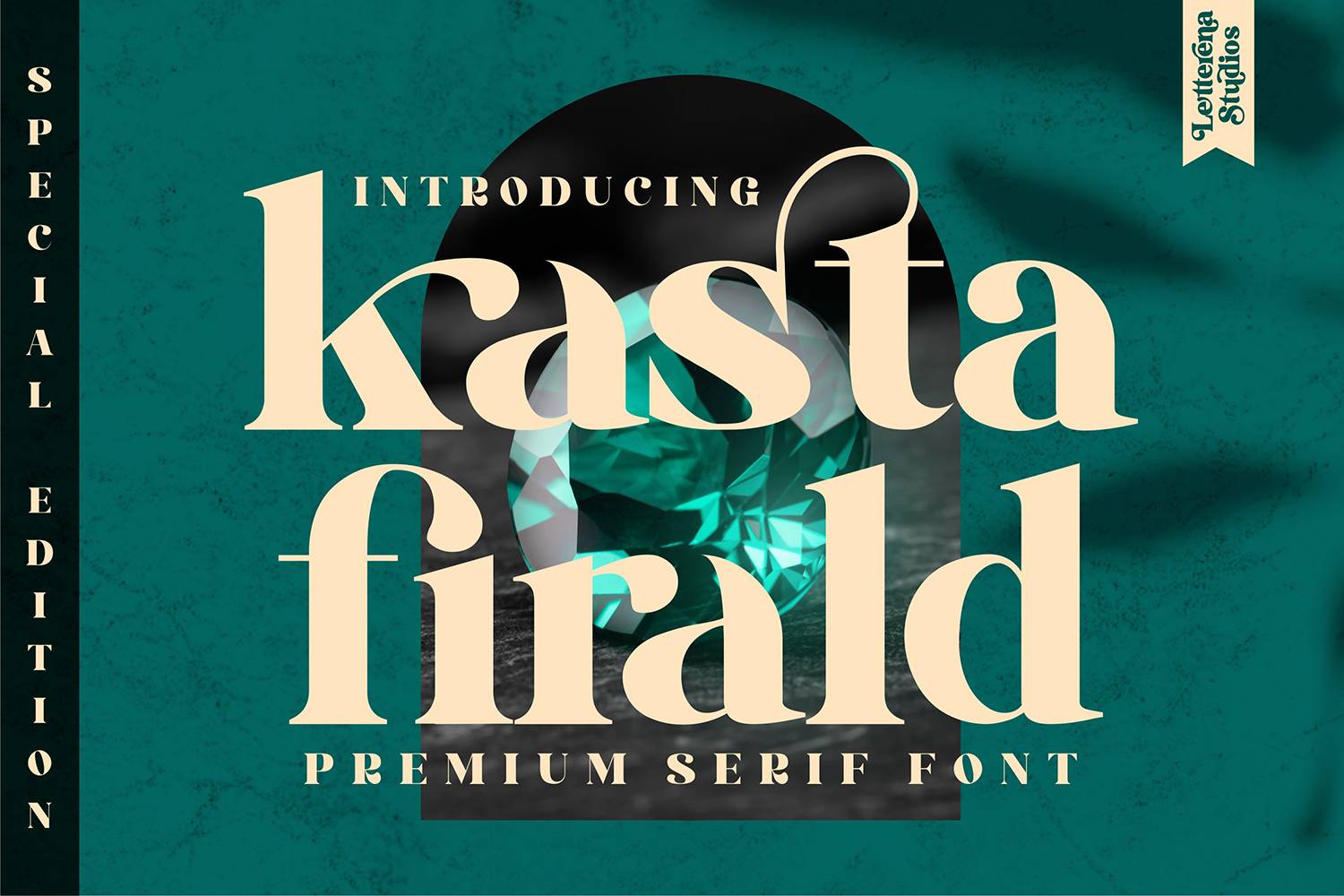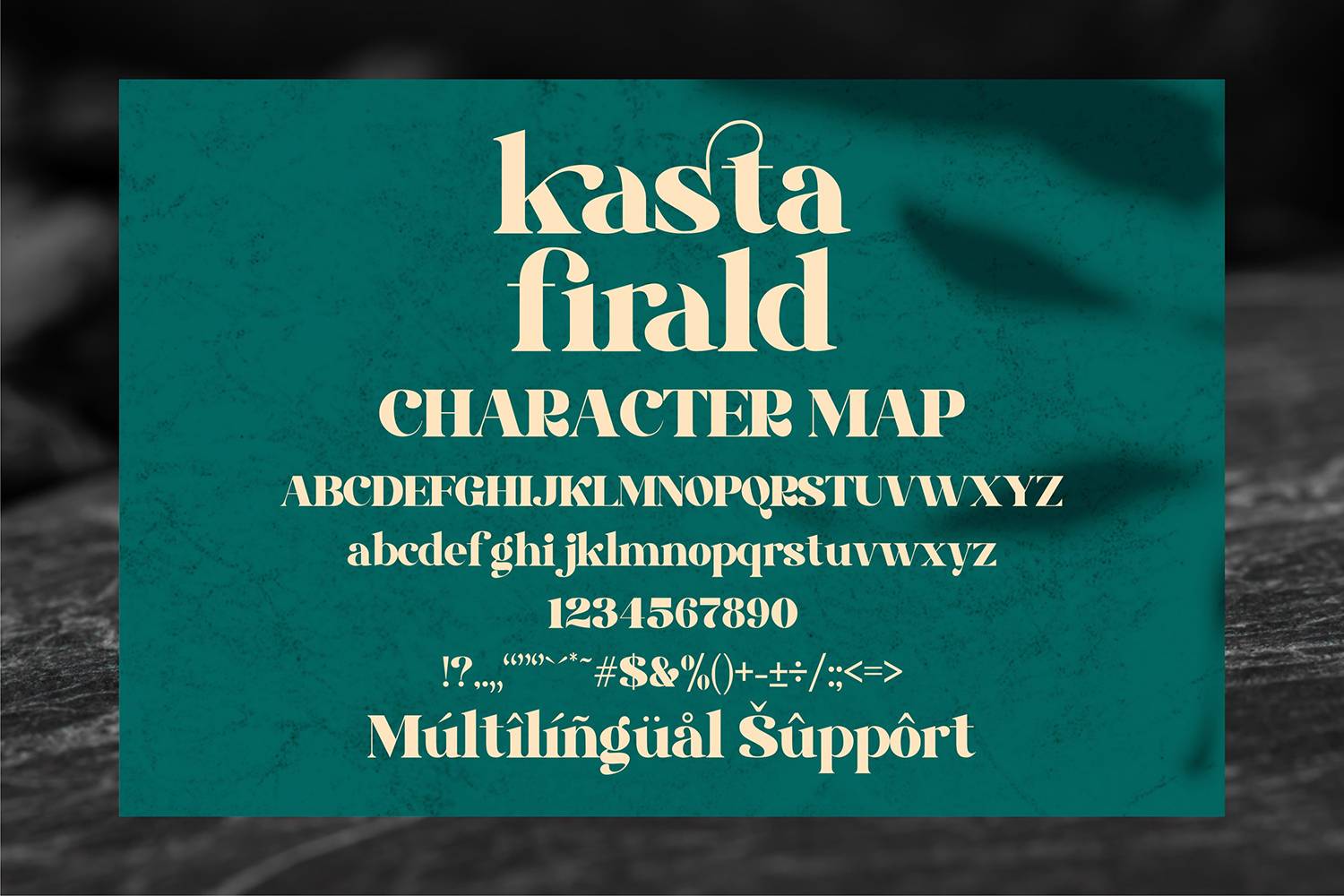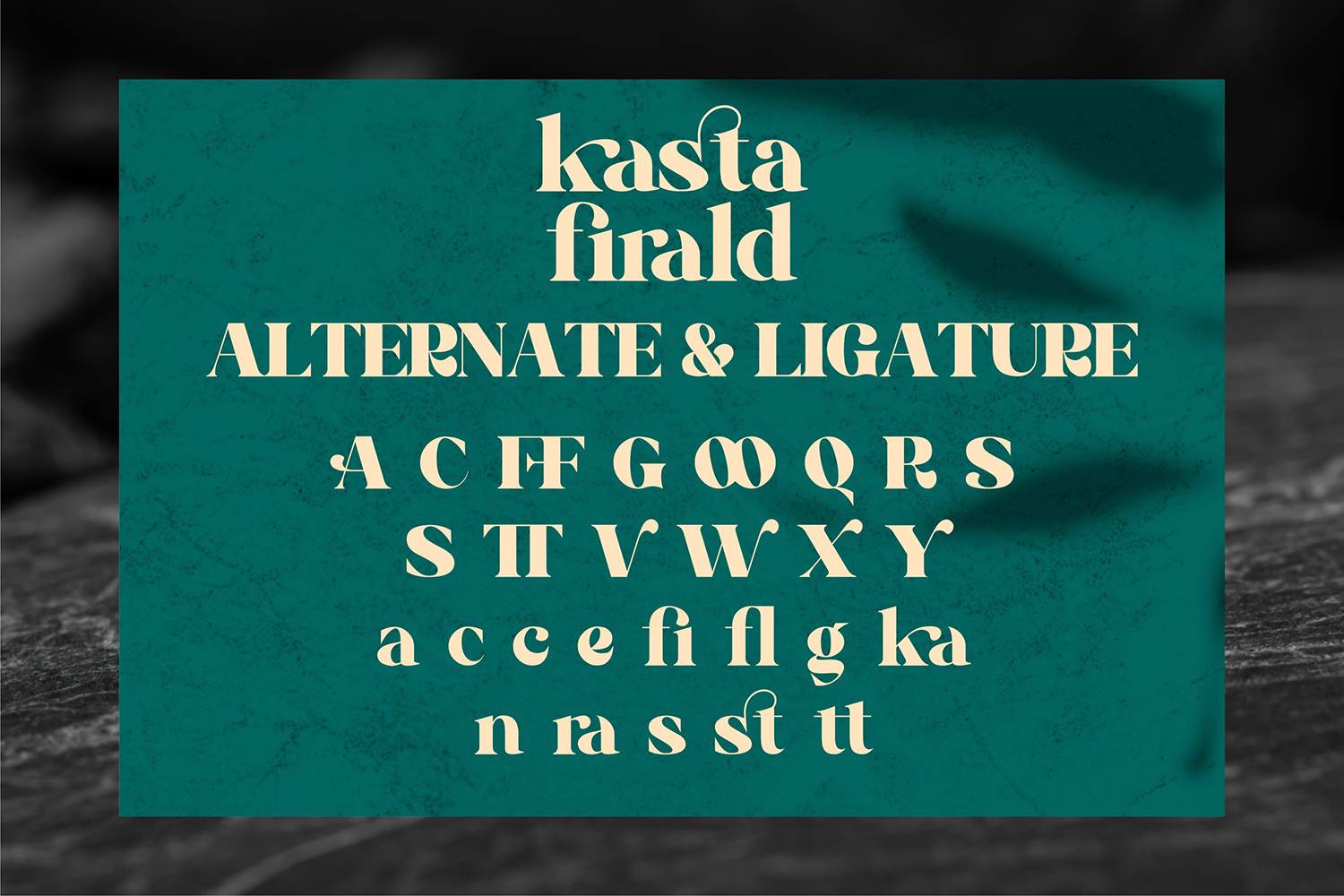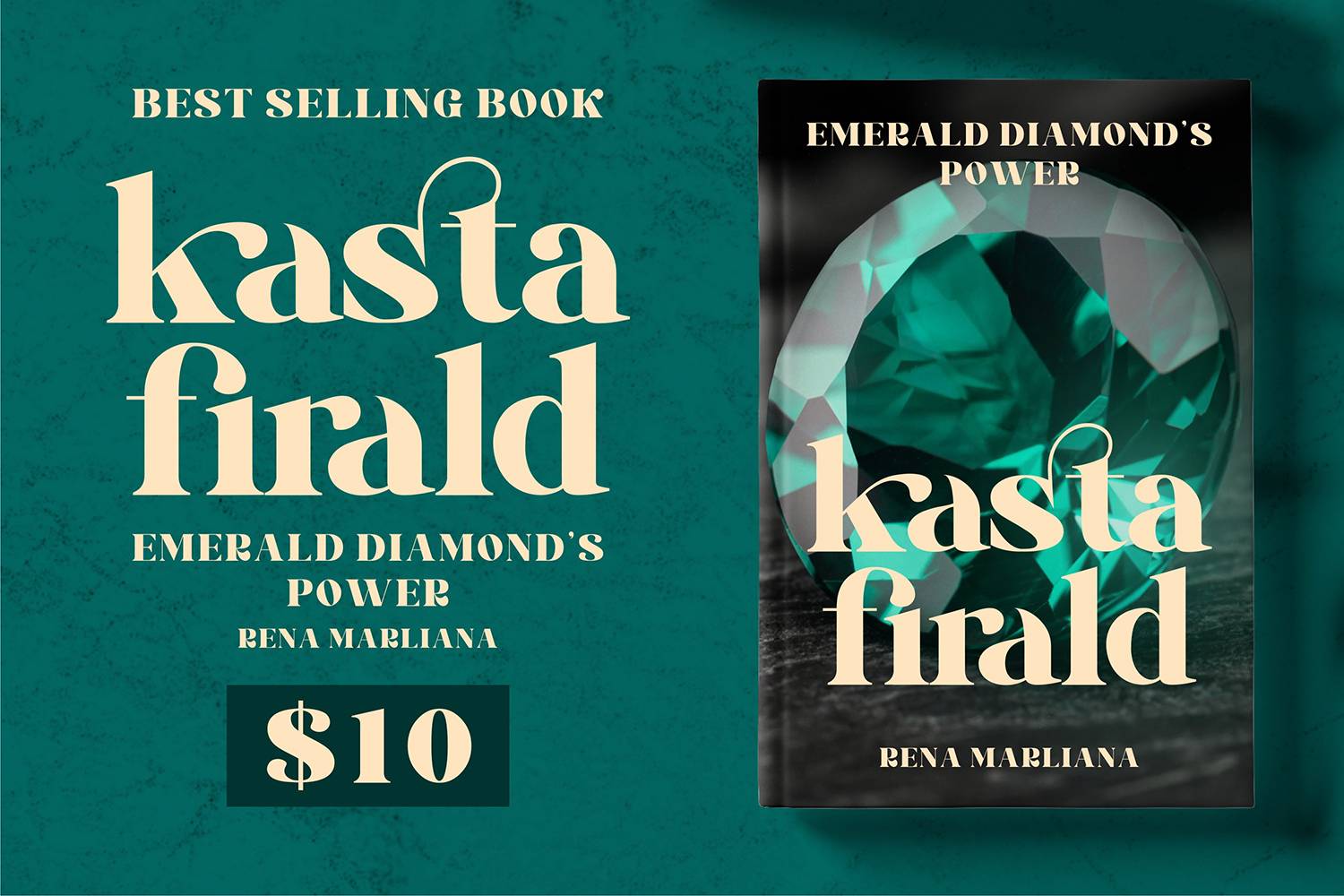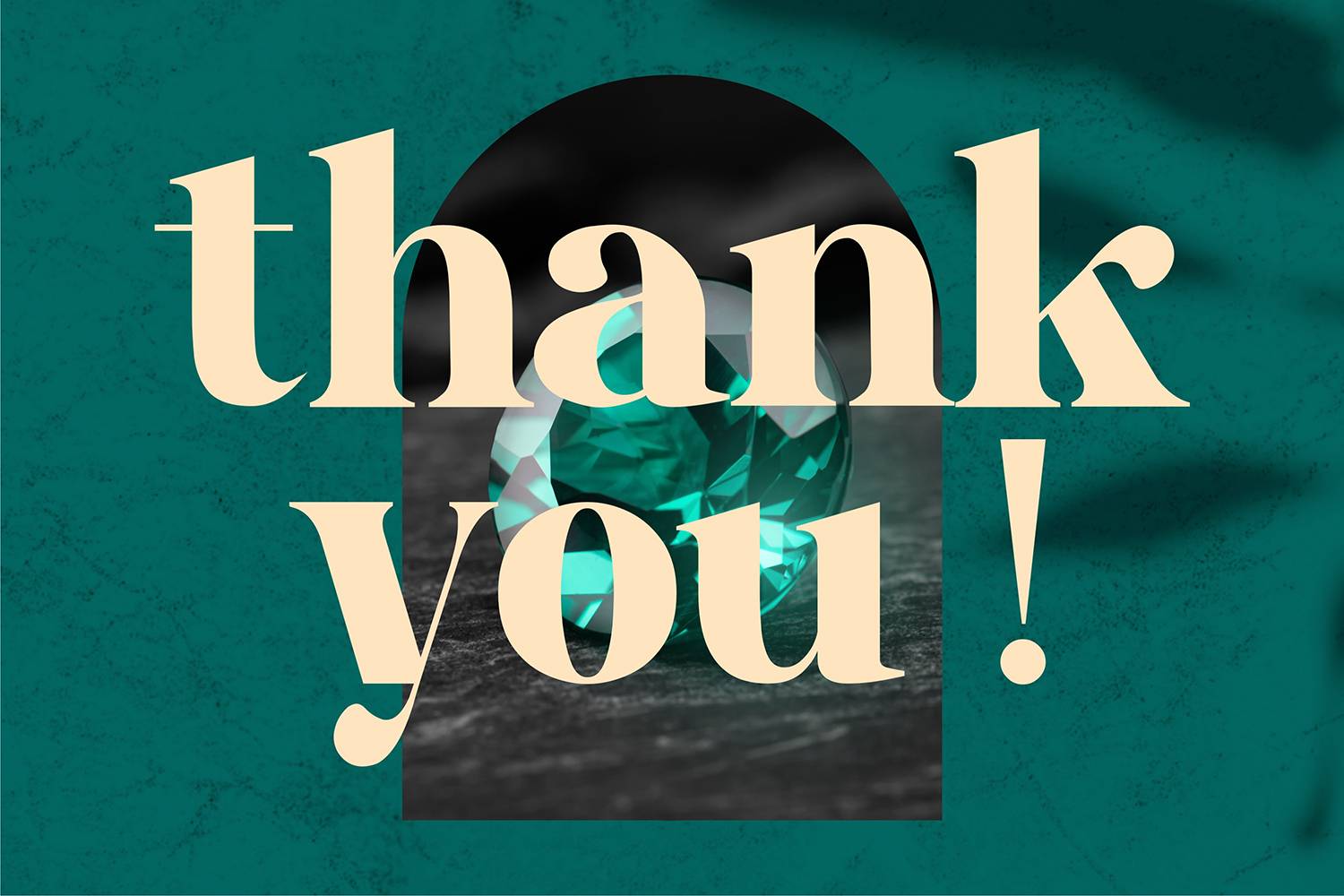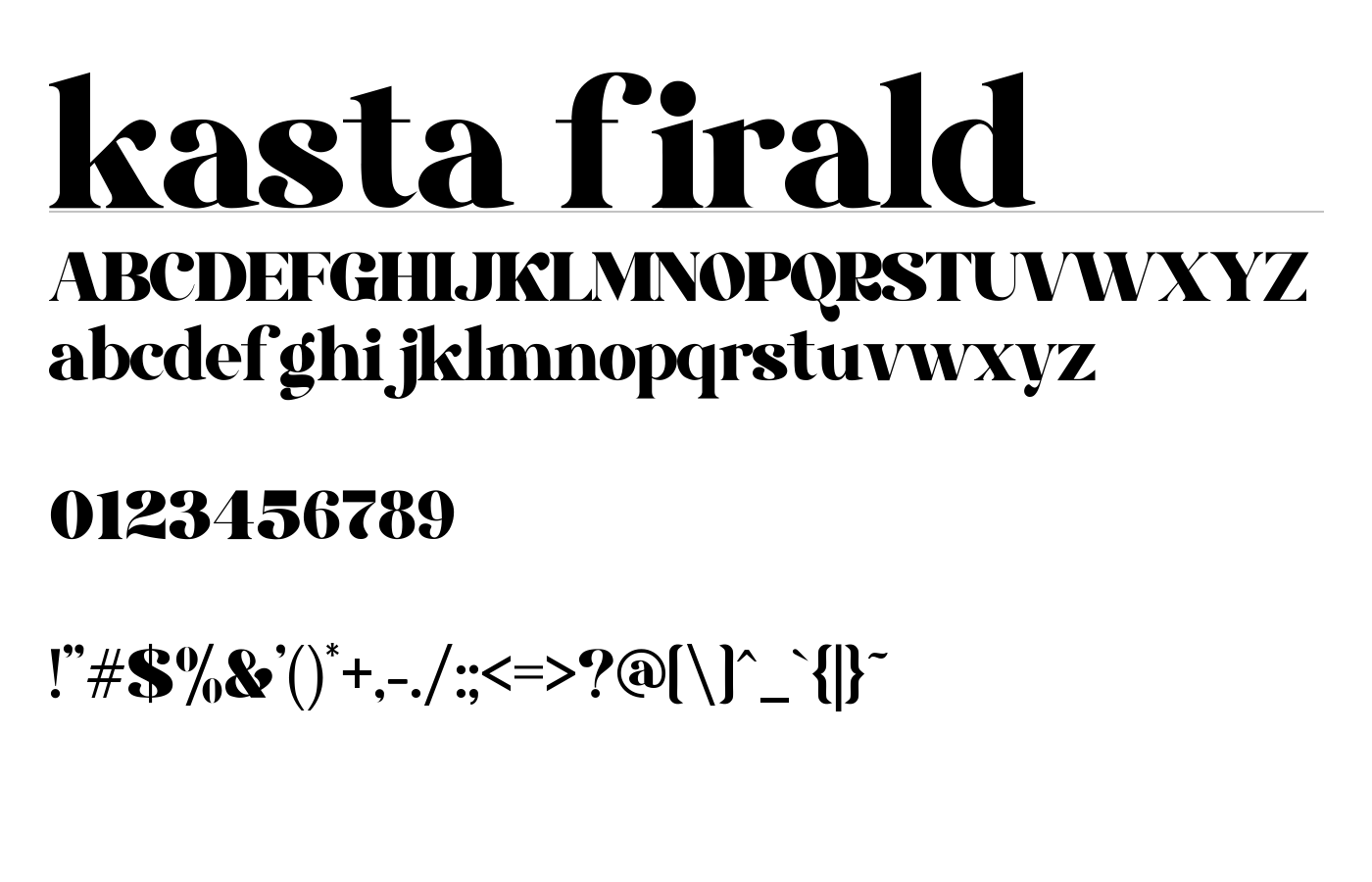
Kasta Firald is a bold serif font with a strong contrast between thick and thin strokes, featuring sharp, bracketed serifs and a high x-height that creates a commanding presence. Its elegant, slightly condensed letterforms, combined with distinctive details like the single-story 'a' and 'g', make it perfect for luxury branding, editorial headlines, and sophisticated packaging. This font delivers a refined yet modern feel, ideal for designs seeking a blend of classic elegance and contemporary impact.
Kasta Firald Font
About Kasta Firald Font